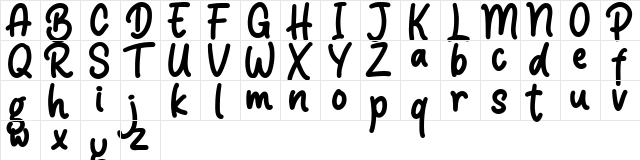
Lollipa Regular
| Designer | Muhammad Sirojuddin - Jogjakarta 2019 |
Design Context for Lollipa Typeface
Lollipa is a composed and adaptable typeface that performs quietly and consistently across a wide range of design contexts.